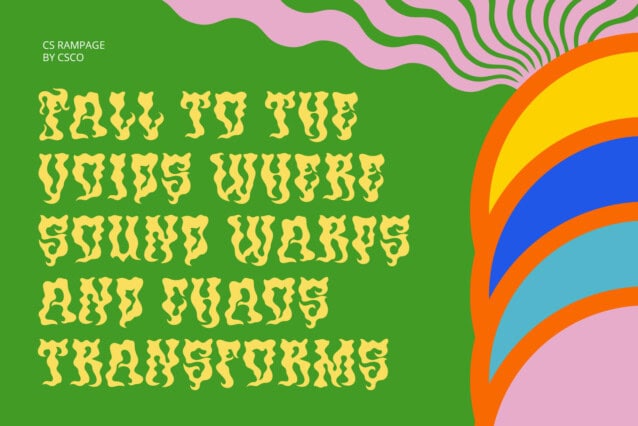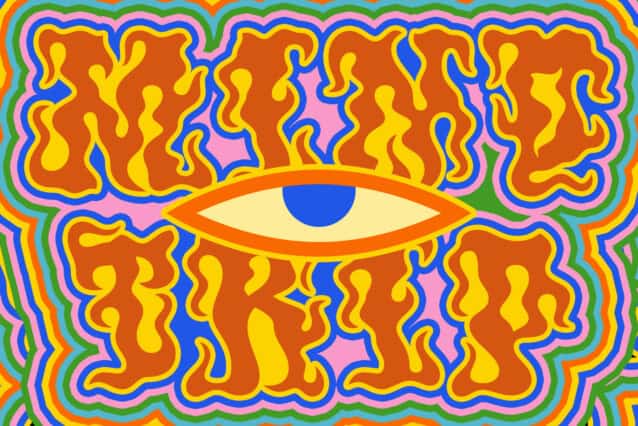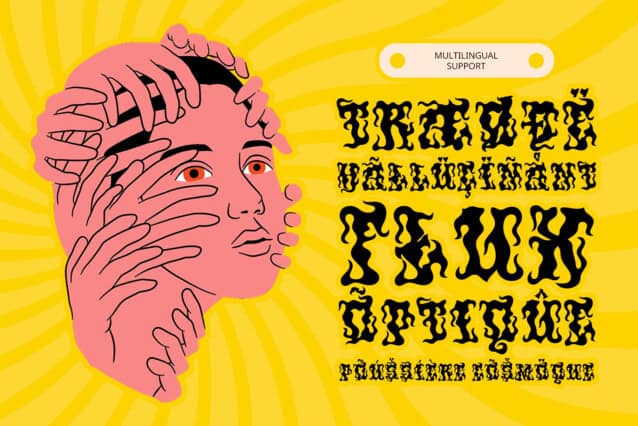
CS Rampage Font
CS Rampage Font is a modern display font infused with a psychedelic spirit, featuring unconventional curves, twisted forms, and dynamic compositions. Its bold, eye-catching shapes immediately radiate a sense of movement, freedom, and visual rhythm, capturing the essence of retro-inspired rebellion and modern artistic flair.